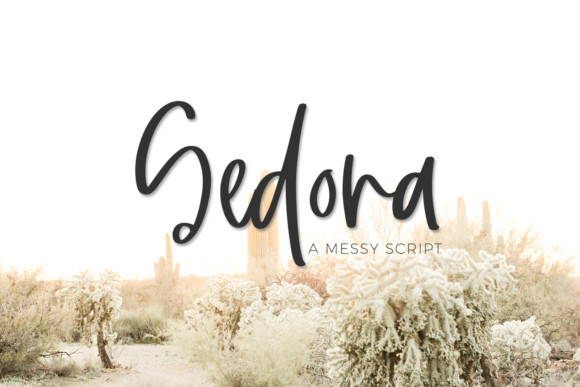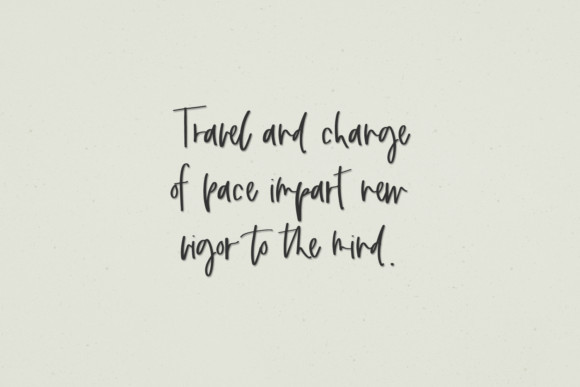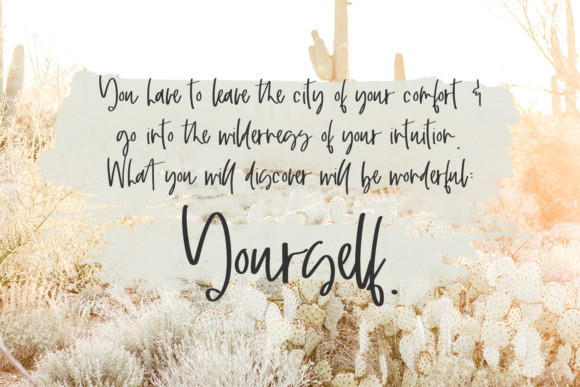
Sedona Font
Sedona is a cute and quirky handwritten font. It will add an incredibly joyful touch to your designs. Add this beautiful display font to each of your creative ideas and notice how it makes them stand out!